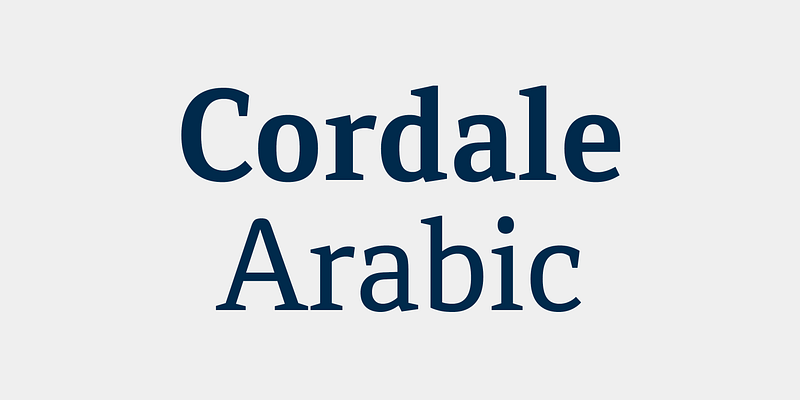
Cordale Arabic Font Free Download is a contemporary Arabic typeface that combines simplicity, elegance, and readability—making it a versatile choice for both digital and print projects. Designed to harmonize with its Latin counterpart, Cordale Arabic is ideal for branding, editorial layouts, website design, mobile interfaces, and bilingual content where a modern and clean Arabic script is essential.
With its open counters, smooth curves, and clear structure, this font ensures excellent legibility across different sizes and platforms. Whether you’re working on a corporate report, cultural publication, or a mobile app with Arabic text, Cordale Arabic Font Free Download provides a refined typographic experience that feels both modern and approachable.
Its thoughtful design allows it to pair seamlessly with sans-serif Latin fonts, supporting a cohesive visual identity in multilingual environments. Cordale Arabic is often chosen by designers who prioritize clarity, professionalism, and a modern aesthetic in Arabic typography.